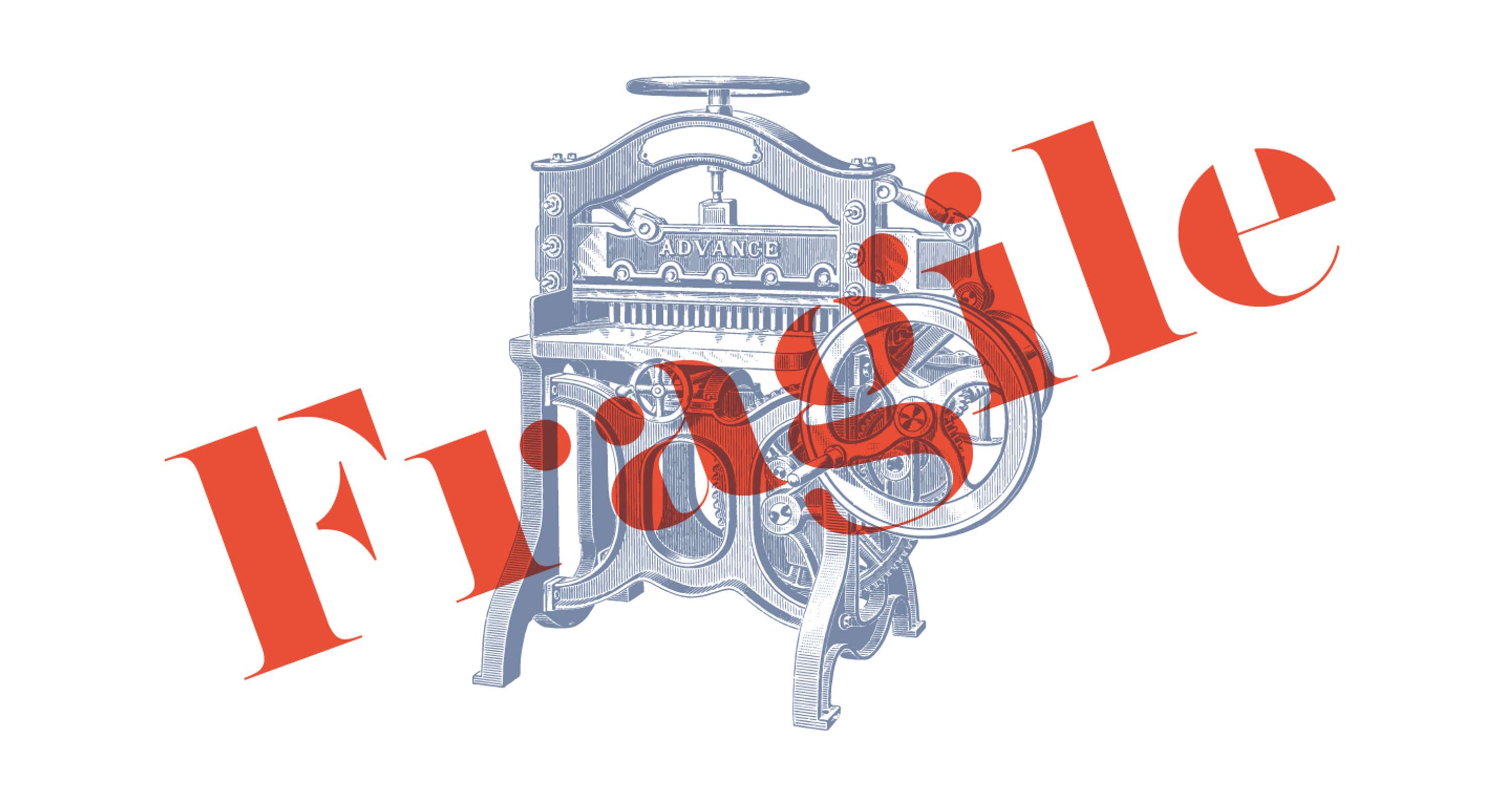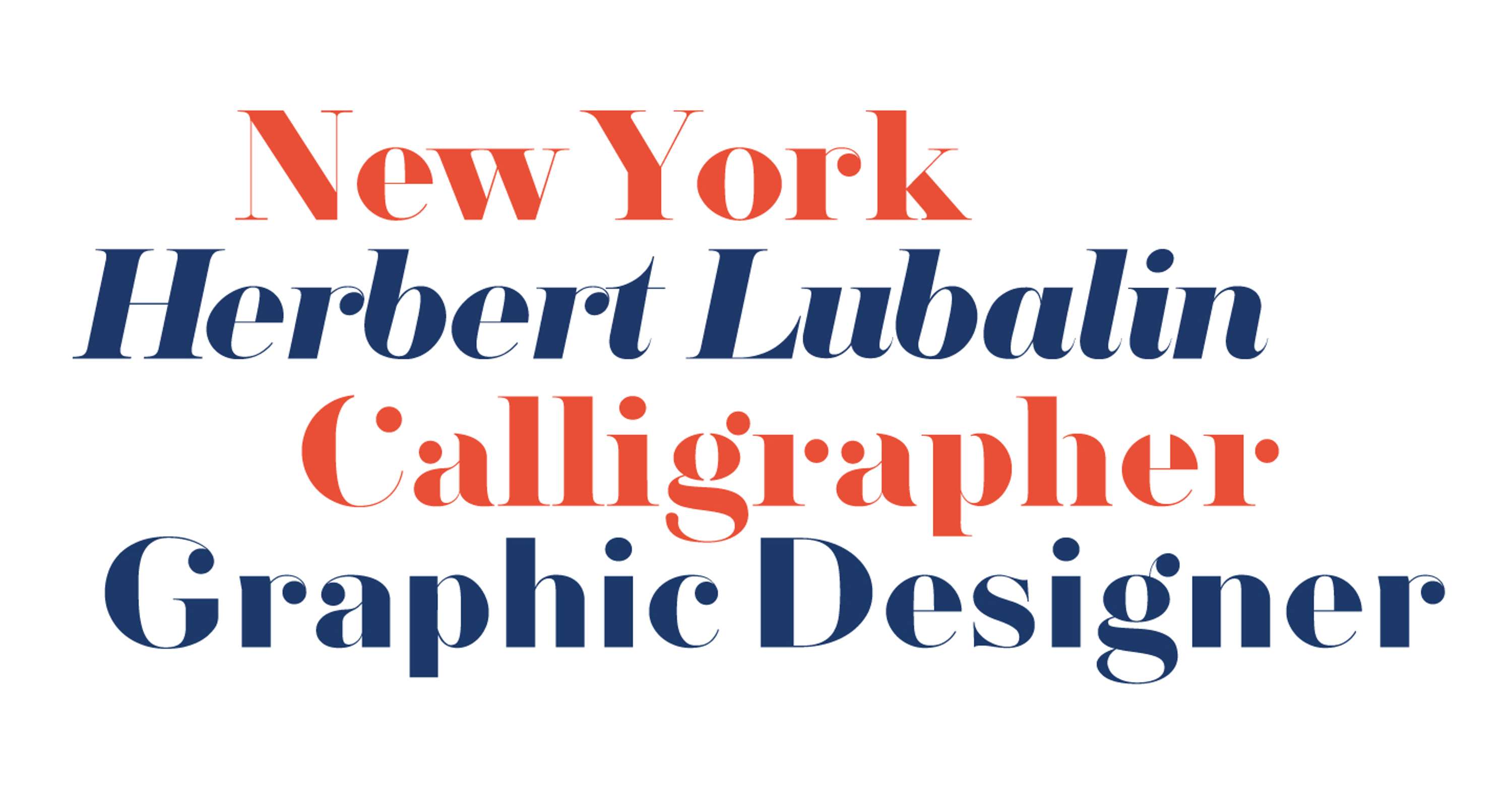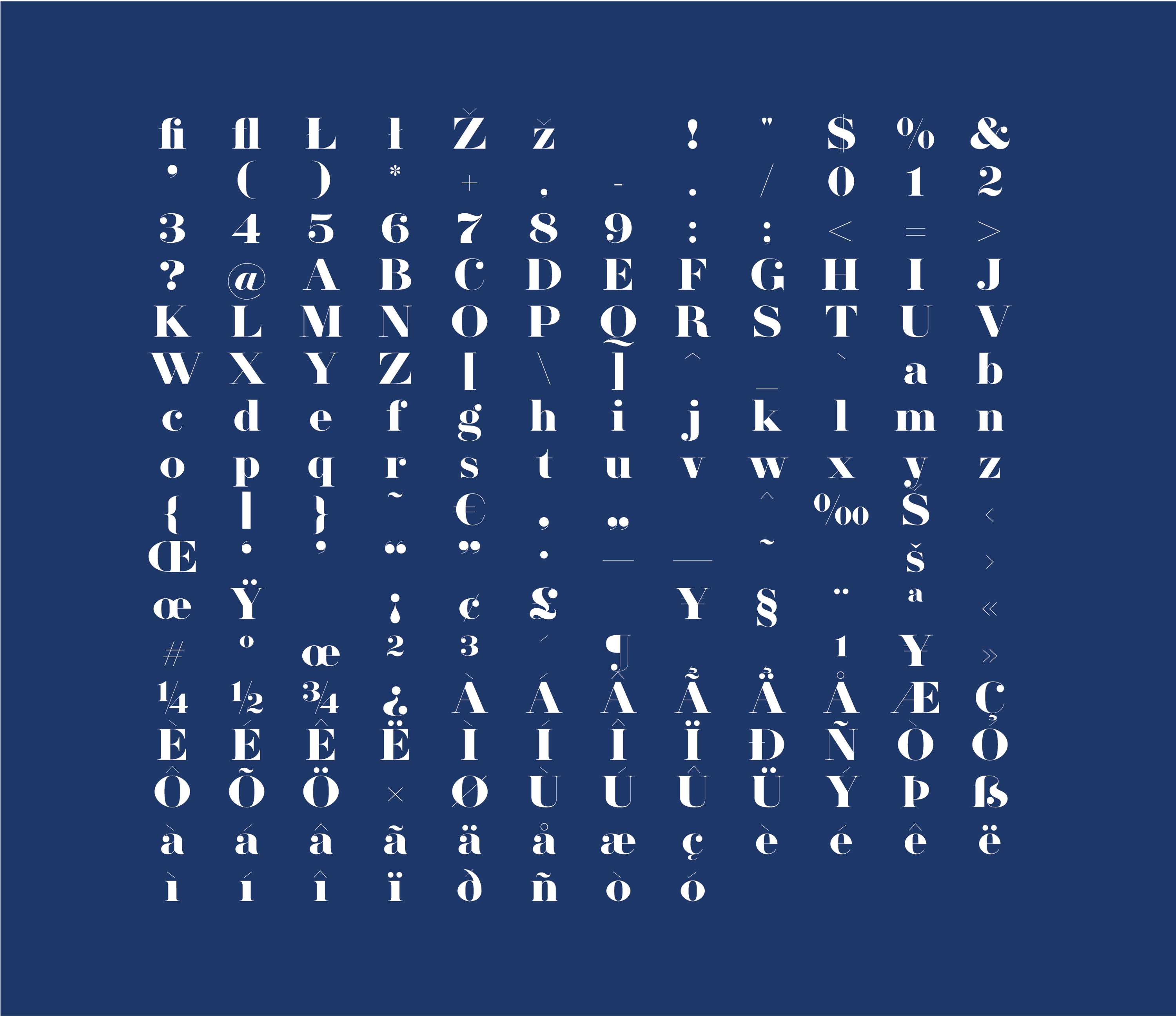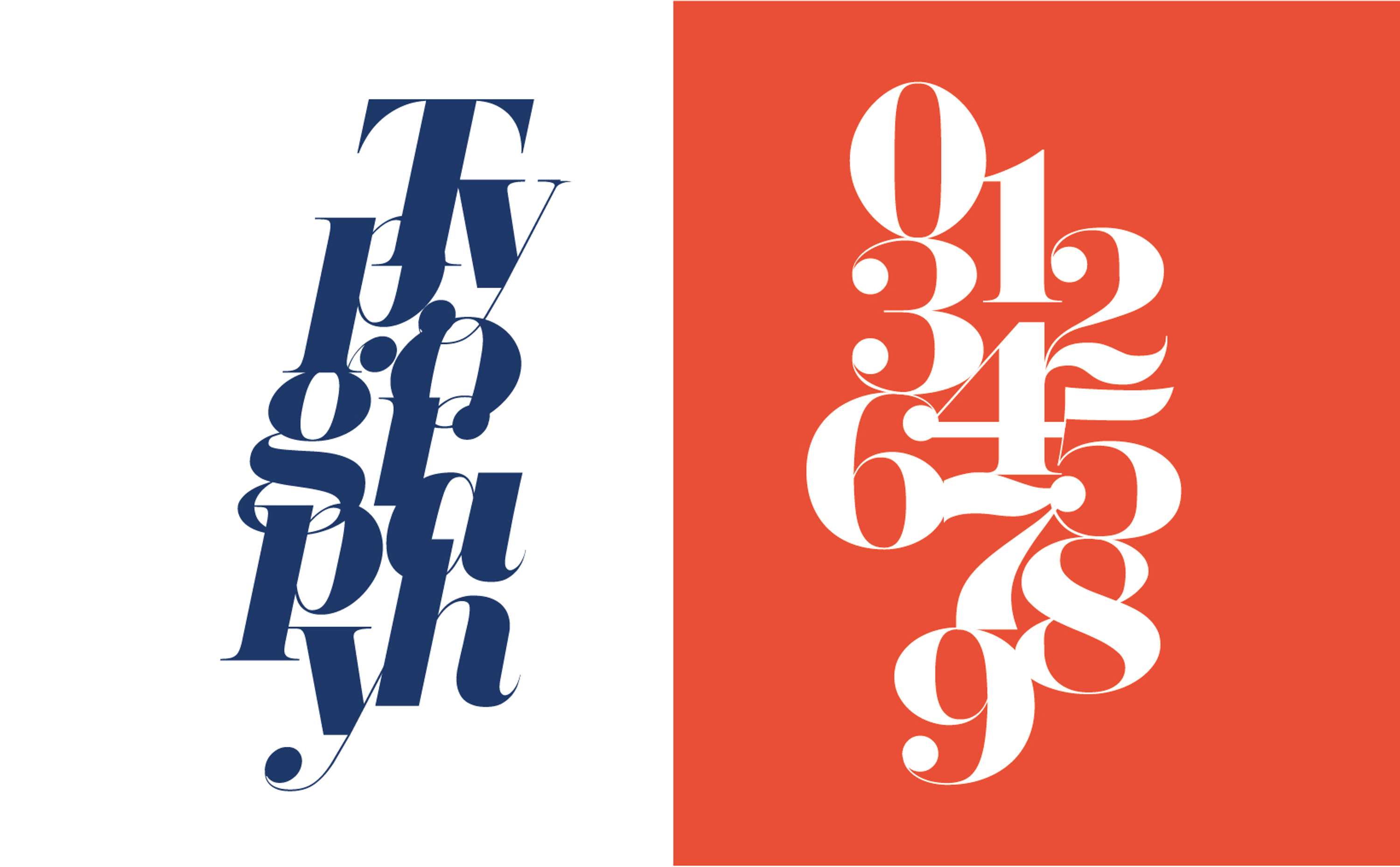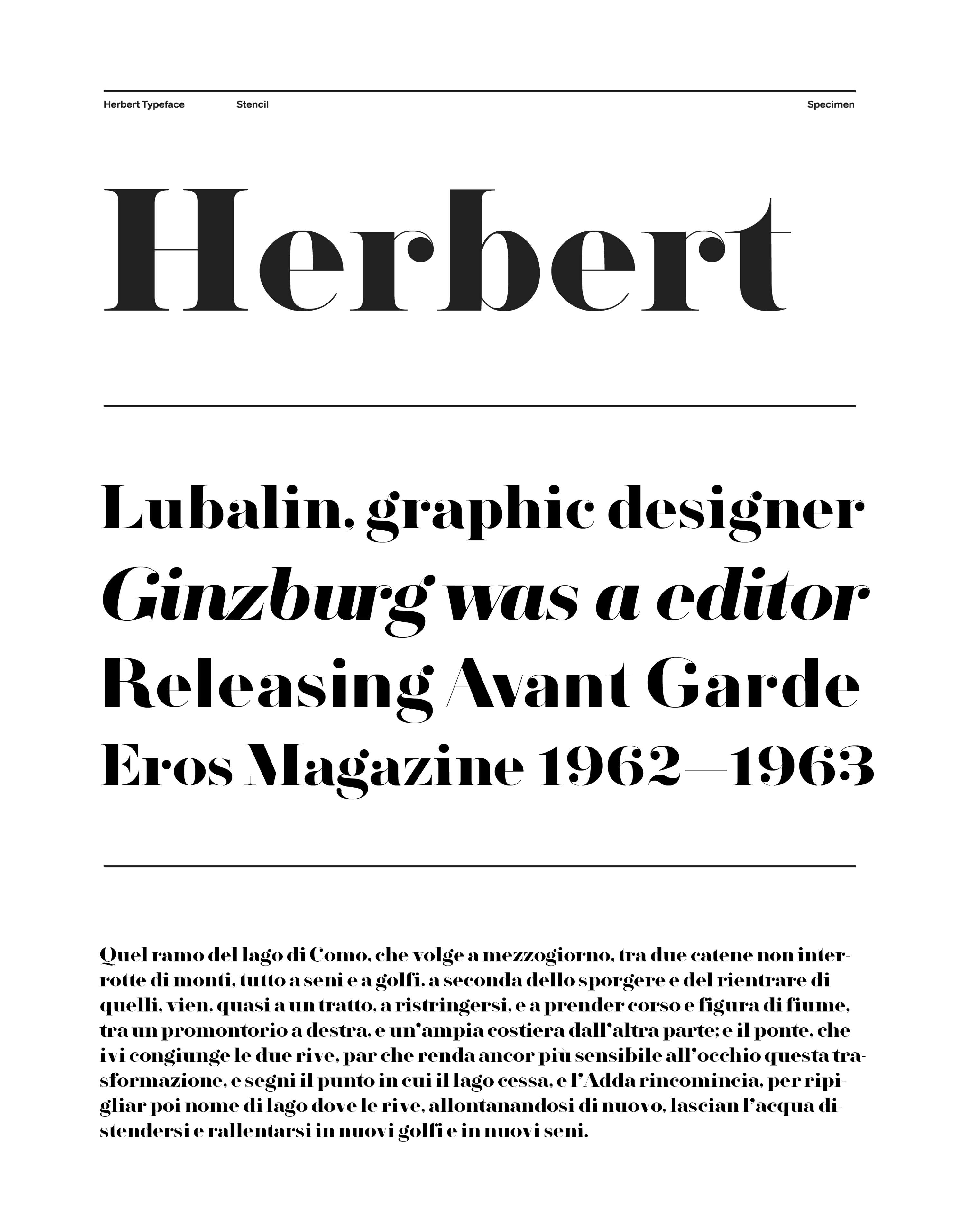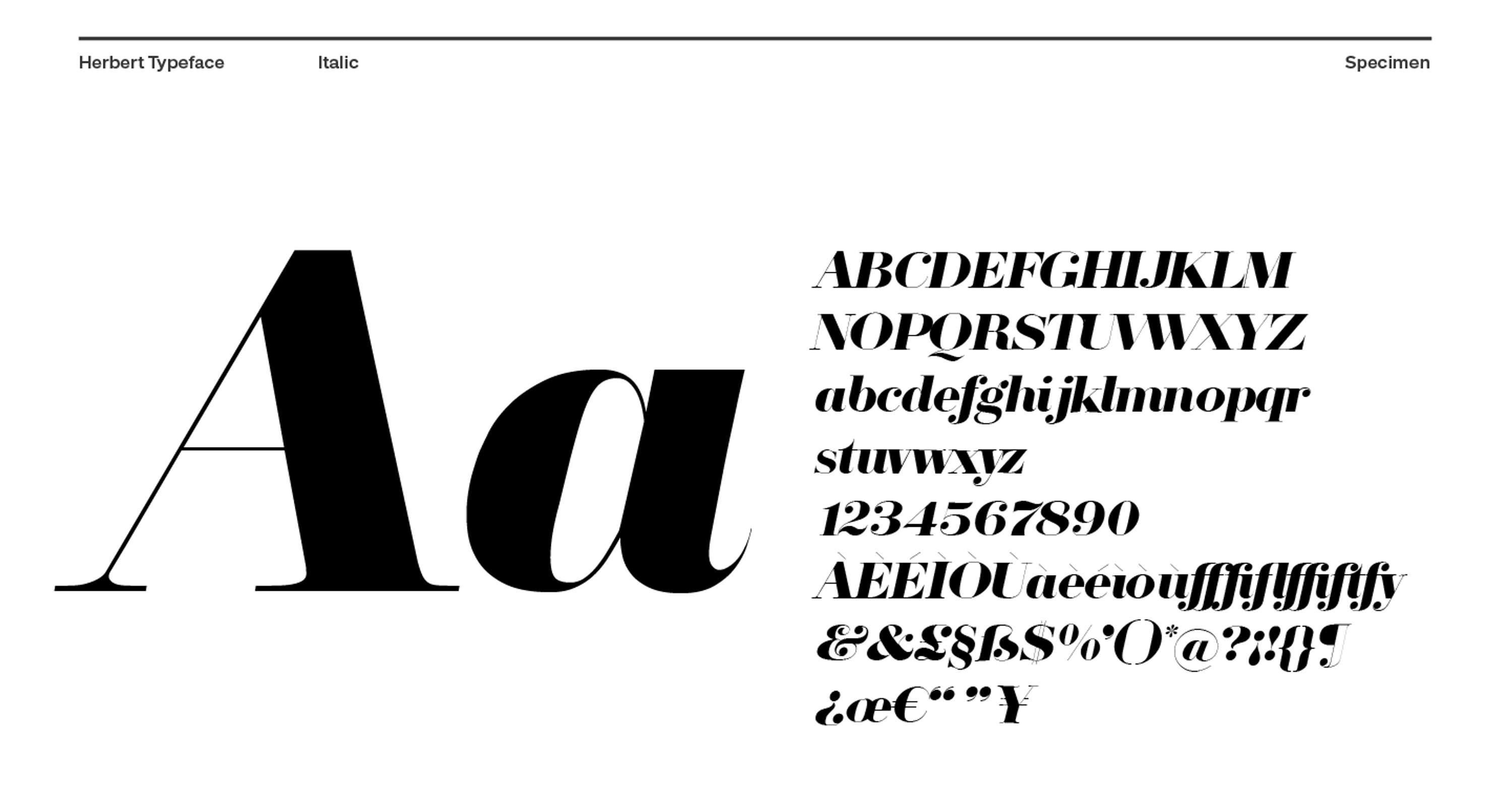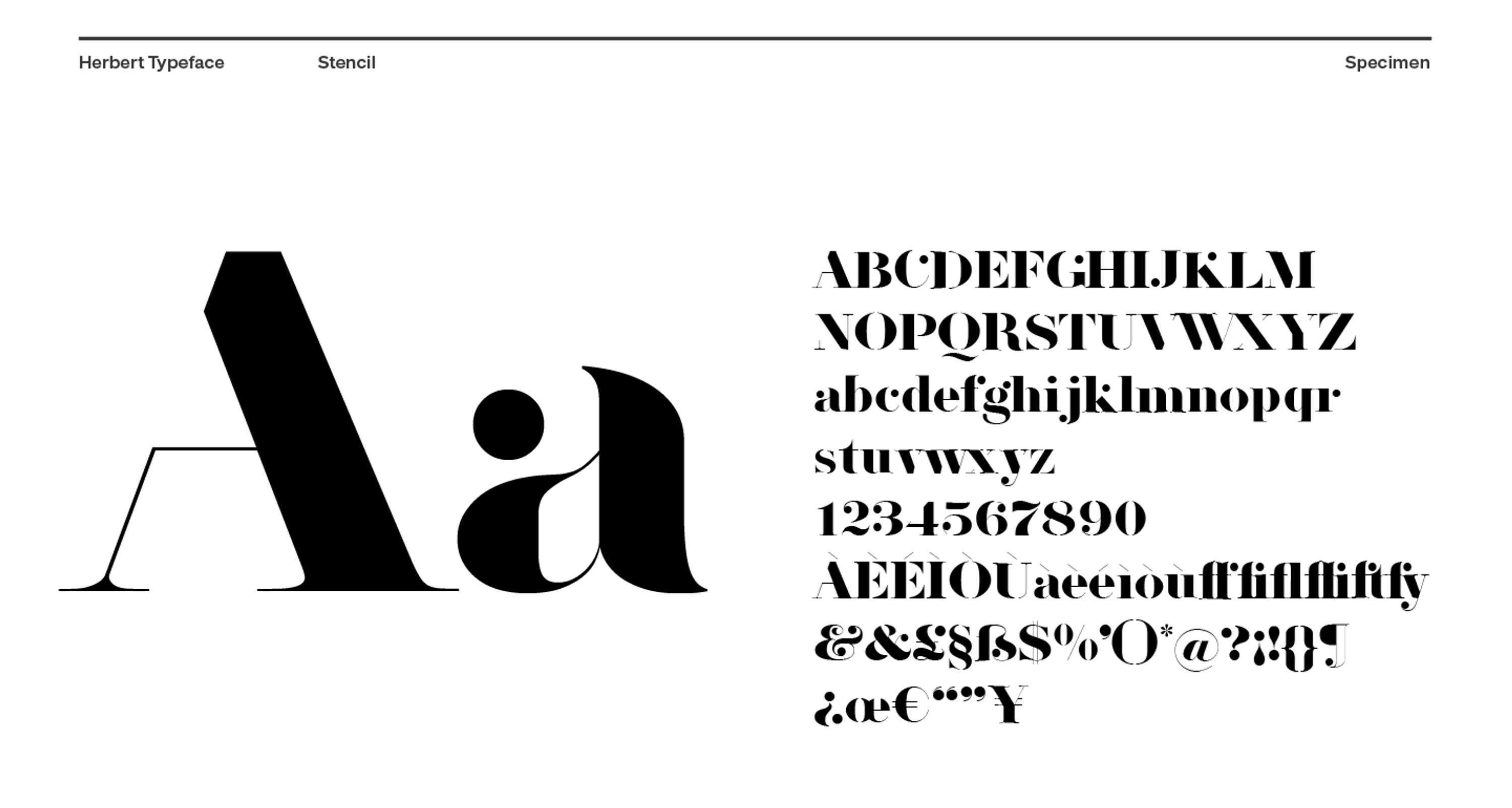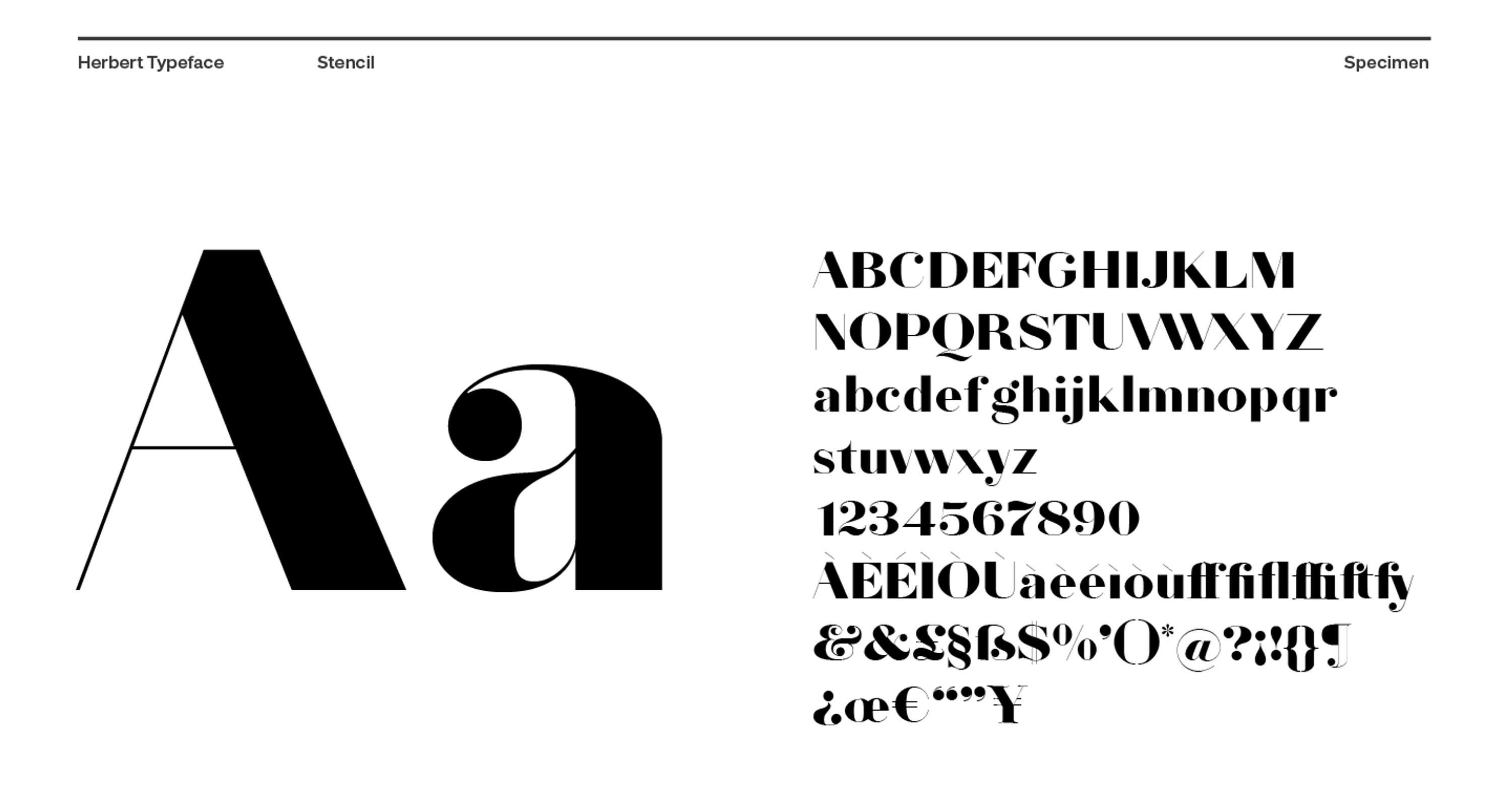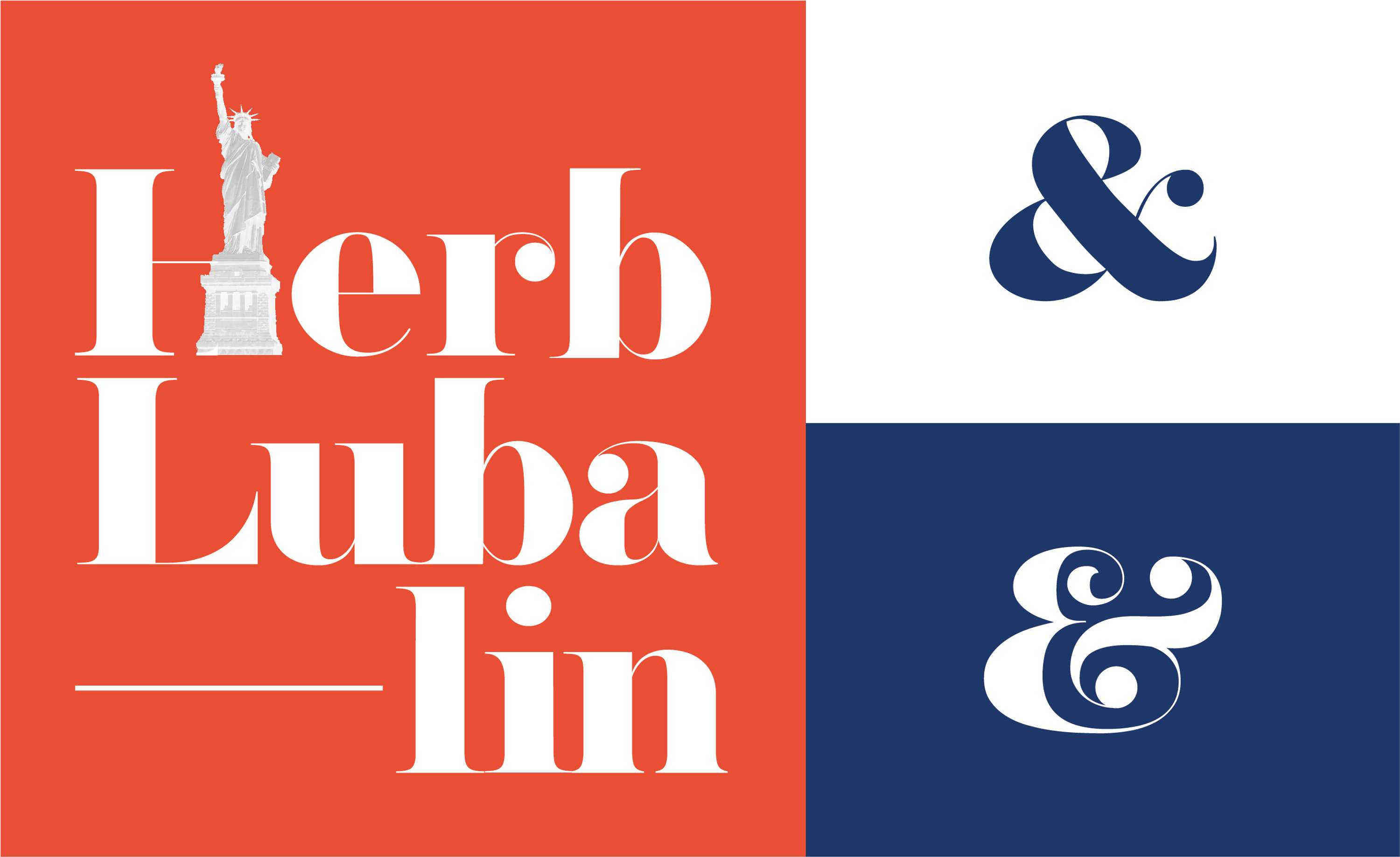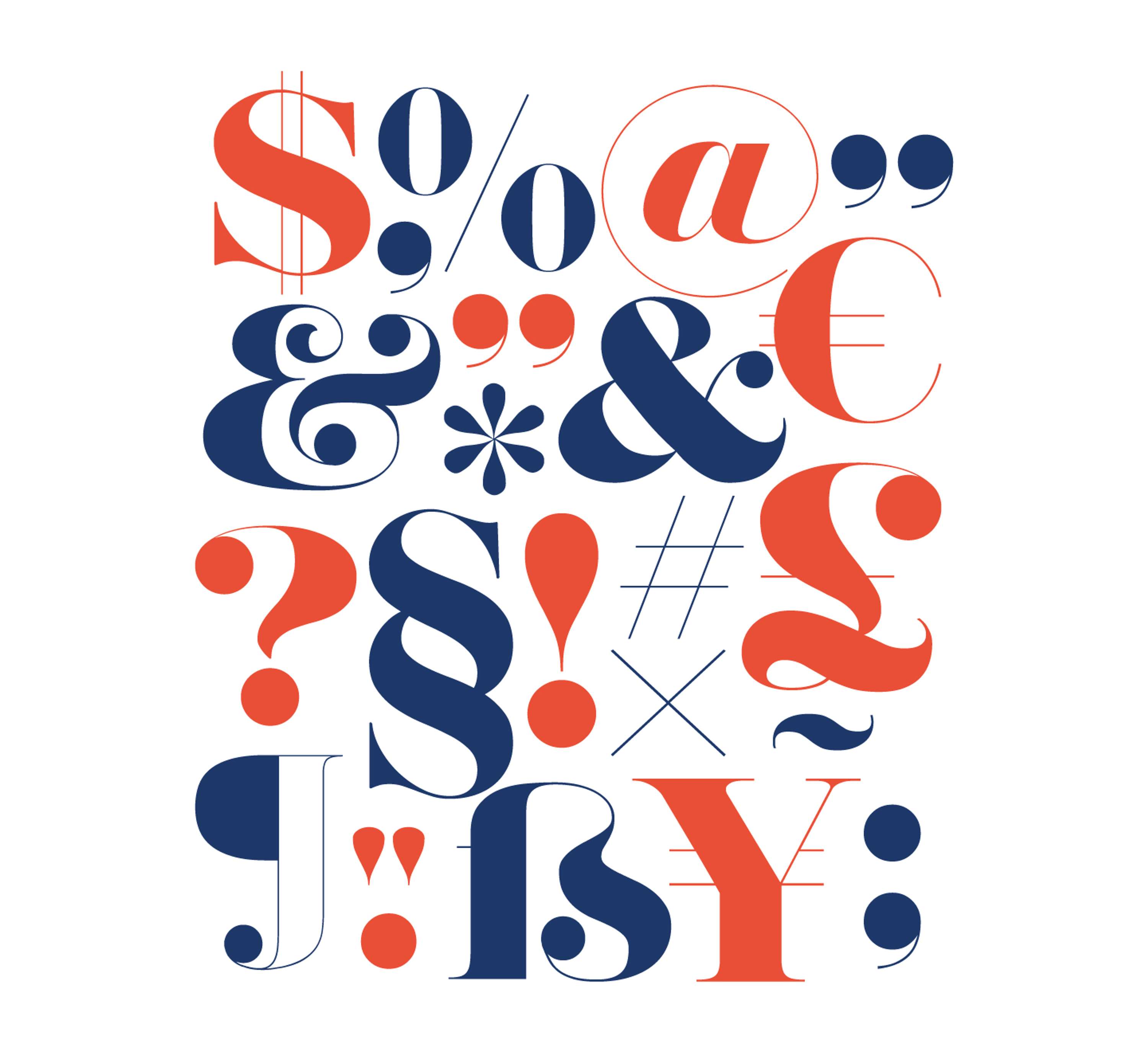
Herbert Typeface
Herbert is a Didone Display font designed by Danilo De Marco in 2018/2019 for the K95 communication studio. Its construction is characterized by the strong contrast between thick and thin rods, which give to the character a strong aesthetic and elegant appearance, For this reason it is unsuitable for the composition of long texts to small dimensions. Instead, it is suitable for the editing of titles or particular graphic-typographic compositions. The name Herbert is a tribute to the famous American graphic designer Herb Lubalin, because the creation of the font coincides with the centenary of his birth anniversary. Lublin's typographic work has had a strong impact in the history of graphics, his enormous talent in using typography goes beyond simple functionality, it has strong expressive and aesthetic connotations, the shapes and geometries of the letters became an integral part of his graphics.
Herbert Typeface by Danilo De Marco